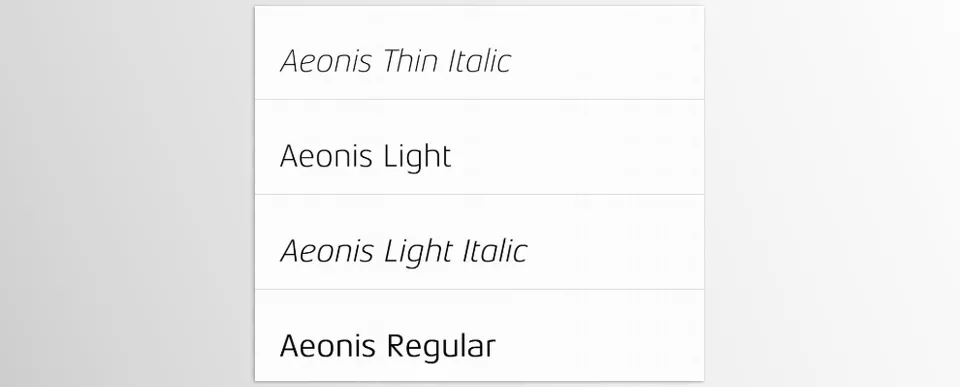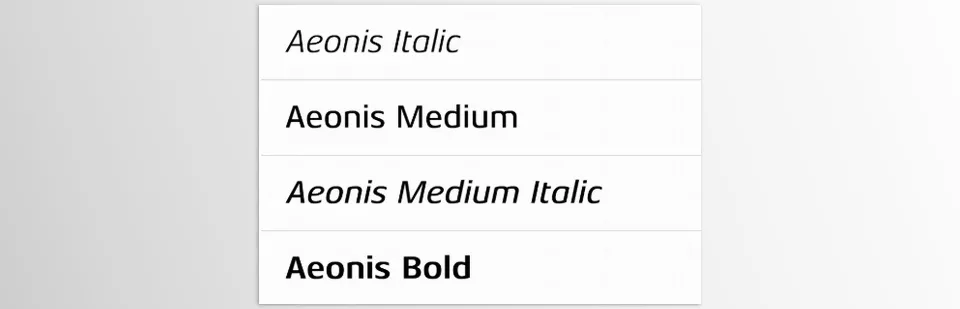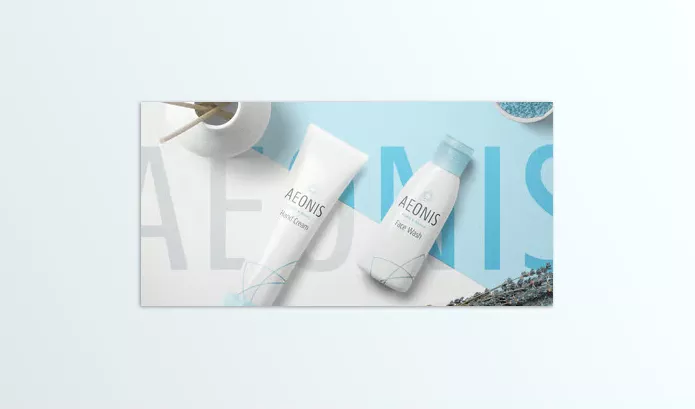
myfonts – Aeonis‘s designer Erik Faulhaber draws inspiration from both contemporary and archetypal design to create a unique typeface family. This sans-serif font is inspired by Greek inscriptions containing a blend of circular and rectangular shapes – it is sleek and readable at varying widths and weights.
• Origin and Inspiration: Takes from Greek inscriptions of the 9th century BC, marrying the past and the present.
• Versatile Styles: With offering of three widths and seven weights, style adjustments can be made for different applications.
• Enhanced Readability: Clarity at smaller sizes is assured by open forms of the letters.
• Consistent Design: All styles of the typeface share the same cap height, ascending height, and x-height as well as descending height.
• Systematic Alignment: For statistical arrangement, figures, symbols, and characters are aligned as one.
• Alternate Characters: User preference can be catered to, e.g. by providing crossbar positioned ‘A’ for alteration.
Image 1: Where timeless elegance meets precise modern structure.
Image 2: Designed for clarity, built for visual harmony in every context.